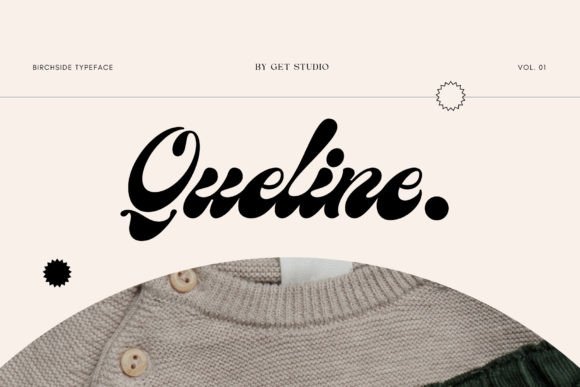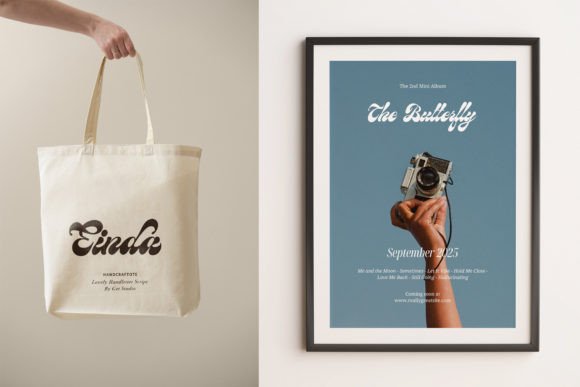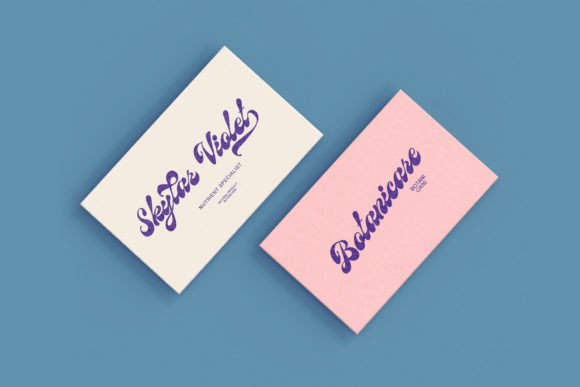
Birchside Font: A Bold Retro Script for Eye-Catching Headlines!
About the Birchside Font
Unleash your creativity with Birchside Font, a versatile font perfect for a wide range of applications. Introducing Birchside Typeface, our latest display script font, a captivating blend of retro charm and contemporary boldness. This font is designed to make a statement with its distinctive style, capturing the essence of vintage aesthetics while maintaining a modern edge. The bold strokes and unique letterforms create a commanding presence, ensuring your text stands out with flair and confidence.
Infused with Opentype features, this font offers a versatile range of alternate characters, allowing you to customize your text and add a touch of individuality to each design. Whether you’re working on branding, posters, invitations, or any creative project, this display script font is a dynamic choice that effortlessly combines nostalgia and innovation. Elevate your typography game with this bold and unique font, making every word a visual masterpiece.